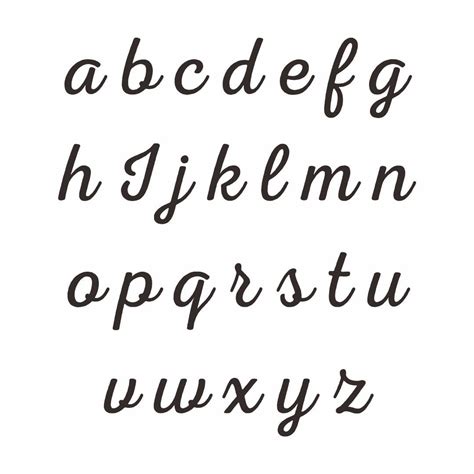
The Unfolding World of Word Fonts: Trends, Myths, and Opportunities
In recent years, a quiet revolution has been brewing in the world of typography. It's a shift that has piqued the interest of designers, entrepreneurs, and everyday people alike โ the rise of word fonts. These specially crafted fonts aim to transform the way we perceive and interact with words on screens and paper. As we delve into the world of word fonts, we'll explore what's driving this trend, how it works, and what it means for you.
Why Word Fonts Is Gaining Attention in the US
Understanding the Context
The growing interest in word fonts can be attributed to several factors. Firstly, the digital age has brought about a new era of visual communication, where typography plays a vital role in conveying messages and emotions. As people spend more time on screens, the need for fonts that engage and inspire has become increasingly important. Additionally, the rise of e-commerce and online publishing has created a demand for unique and attention-grabbing fonts that set businesses apart.
How Word Fonts Actually Works
Word fonts are designed to evoke a specific emotional response or create a particular atmosphere. By using a combination of typography, color, and texture, these fonts aim to draw the reader in and convey the intended message. Unlike traditional fonts, word fonts are often custom-designed for specific use cases, such as branding, advertising, or educational materials. This tailored approach enables word fonts to speak directly to the target audience, creating a more intimate and impactful connection.
Common Questions People Have About Word Fonts
- **What makes word fonts different from regular fonts?*Word fonts are designed to elicit a specific emotional response or create a particular atmosphere, whereas traditional fonts are often focused on legibility and clarity. **Can I use word fonts for any purpose?*While word fonts can be versatile, they're often designed for specific use cases. It's essential to consider the context and intended audience before choosing a word font. **Are word fonts only for visual communication?**No, word fonts can be applied to various forms of communication, including text messages, emails, and even spoken language.
Opportunities and Considerations
While word fonts offer a wealth of creative possibilities, it's essential to approach them with a clear understanding of their limitations and potential drawbacks. Here are some key considerations:
- Accessibility: Word fonts may not be compatible with all devices or assistive technologies, potentially limiting their accessibility.* Overuse: The unique appeal of word fonts can quickly wear off if overused or misused, leading to a negative impact on the intended message.* Authenticity: Word fonts should always be used authentically, avoiding overemphasis or manipulation to convey a message that may not be genuine.
Things People Often Misunderstand
- Word fonts are only for aesthetics: While word fonts do have a visual impact, their primary purpose is to convey a specific message or evoke an emotional response.* Word fonts are a replacement for regular fonts: Word fonts are designed to complement regular fonts, not replace them.* Word fonts are only for businesses: Word fonts can be applied to various contexts, including personal projects, education, and even healthcare.
Who Word Fonts May Be Relevant For
Word fonts can be a valuable tool for:
- Designers and creatives: To add an extra layer of depth and emotion to their work* Business owners: To create a unique brand identity and connect with their target audience* Educators: To engage students and convey complex information in an innovative way* Content creators: To craft compelling stories and convey emotions through text